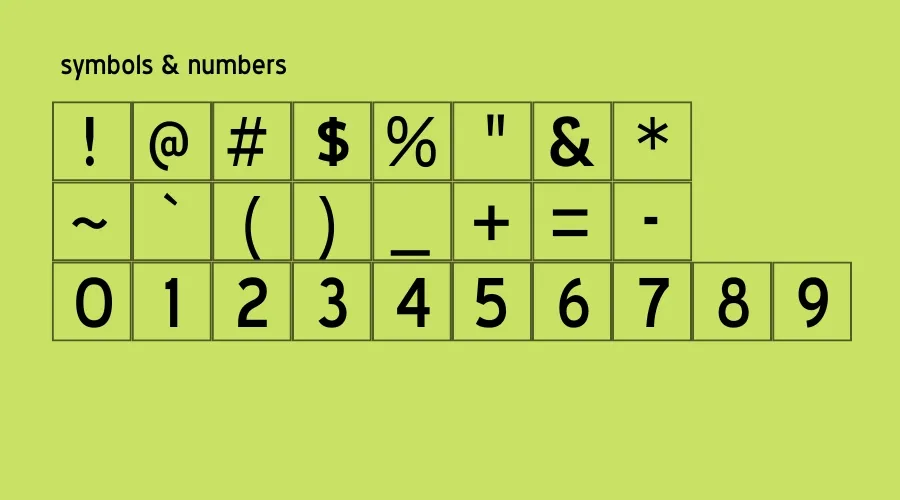
About Blue Highway Font
Today we discussed an amazing sans-serif typeface that is known as the name of Blue Highway Font. It is totally free and perfect for your both operating systems PC and MAC. This typeface has been designed by the renowned Typodermic Fonts and it is a popular choice among many famous graphic designers.
When this unique texture was published in the font world, it gained soo much popularity in a very short time. This typeface offers a unique take on traditional all-caps letterforms, with tall ascenders and descenders balanced alongside curved open counters.
You may utilize this font with cotlin font and make modern projects. For example, the unique curves of the uppercase A, D, L, M, and N create a distinctive look that’s perfect for many purposes. This font is suitable for a variety of applications, including short-form documents, presentations, logos, branding, and more.
This typeface is a highly readable and light typeface, you may utilize this stunning texture for different kinds of projects, as well as making logos, posters, banners, and many other methods. This font is the perfect choice for long and short paragraphs because it has a neat and straightforward texture look appearance.
It is a good-looking typeface and can be paired with the revalo modern font because it is the best option for this texture. Another type is suitable for more unique design purposes which is linocut.
What is the Blue Highway typeface?
Blue Highway is an amazing sans-serif typeface that has been designed by the renowned Typodermic Fonts with both file formats OTF and TTF.
Where can I use the Blue Highway font?
This typeface is a highly readable and light typeface, you may utilize this stunning texture for different kinds of projects, as well as making logos, posters, and banners.